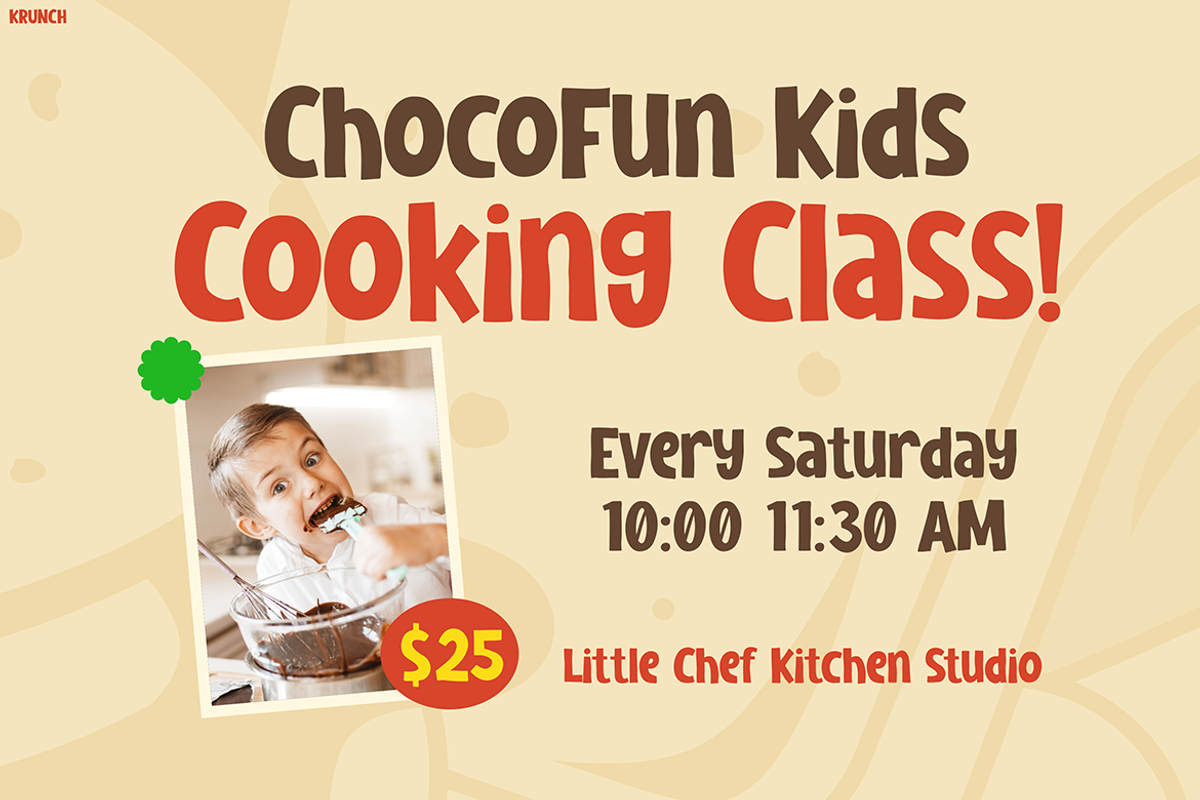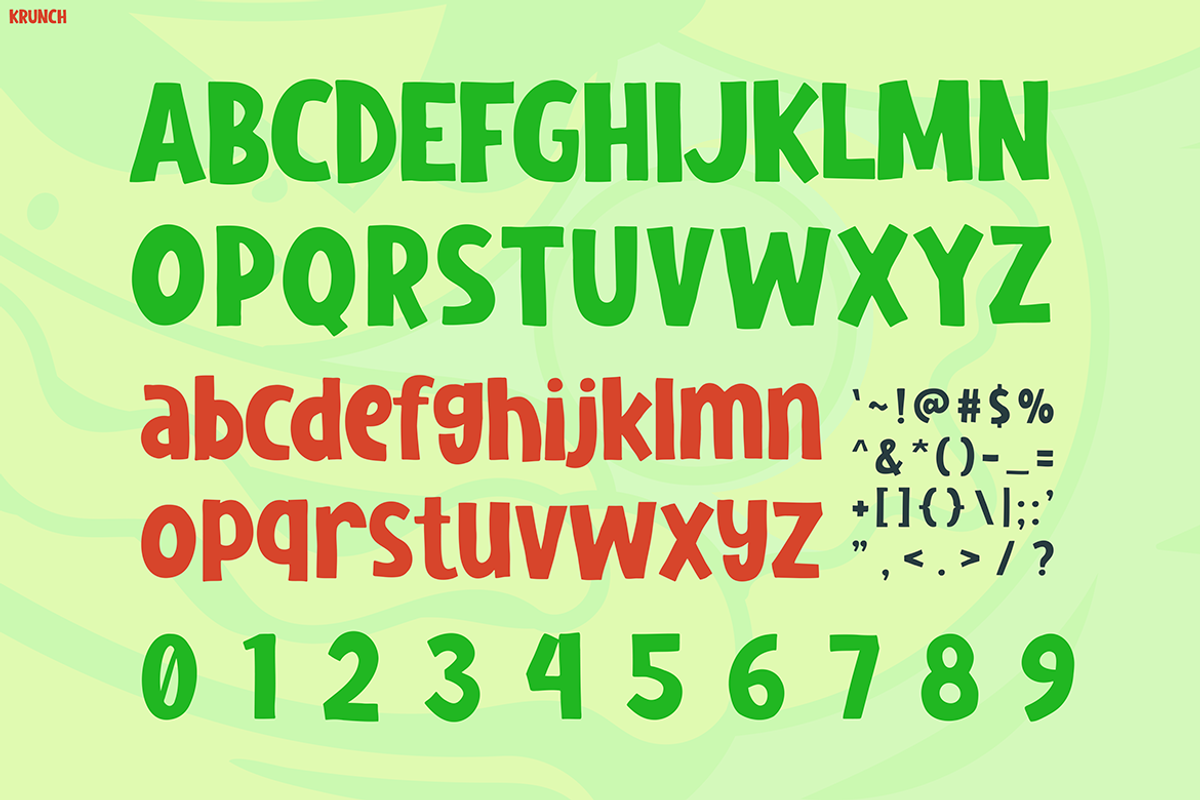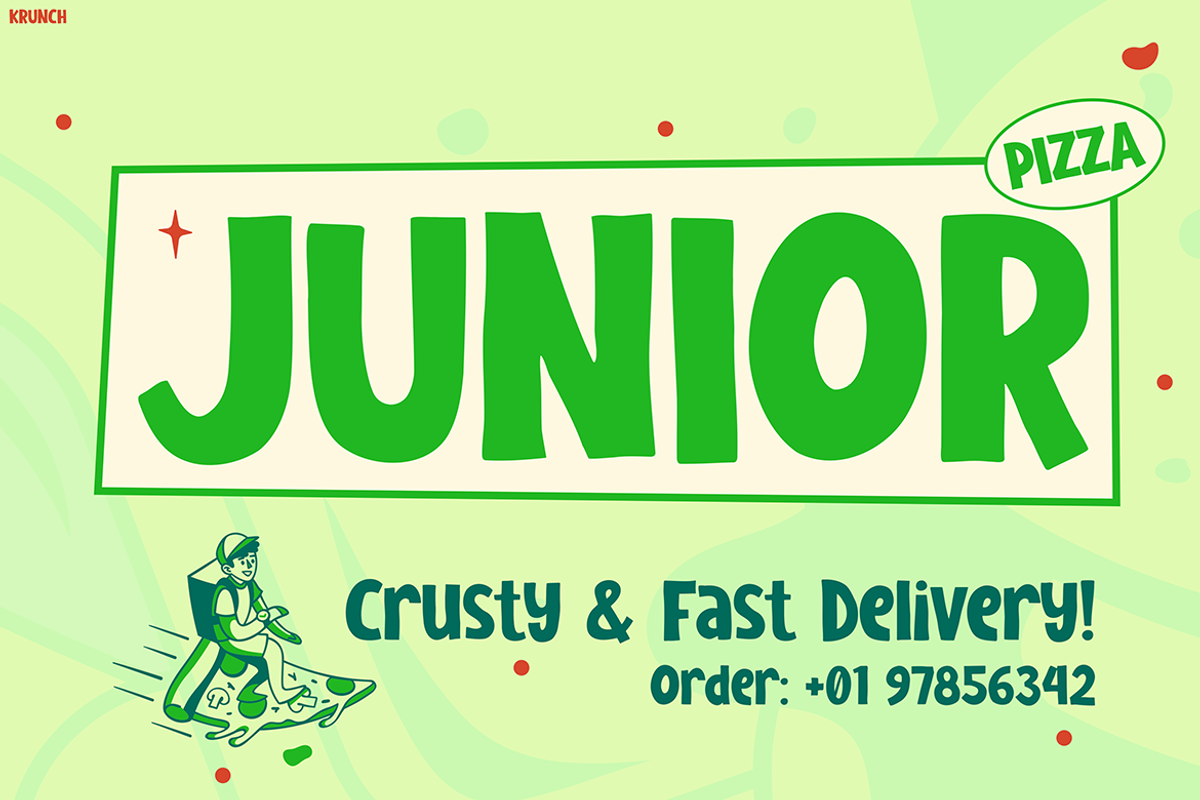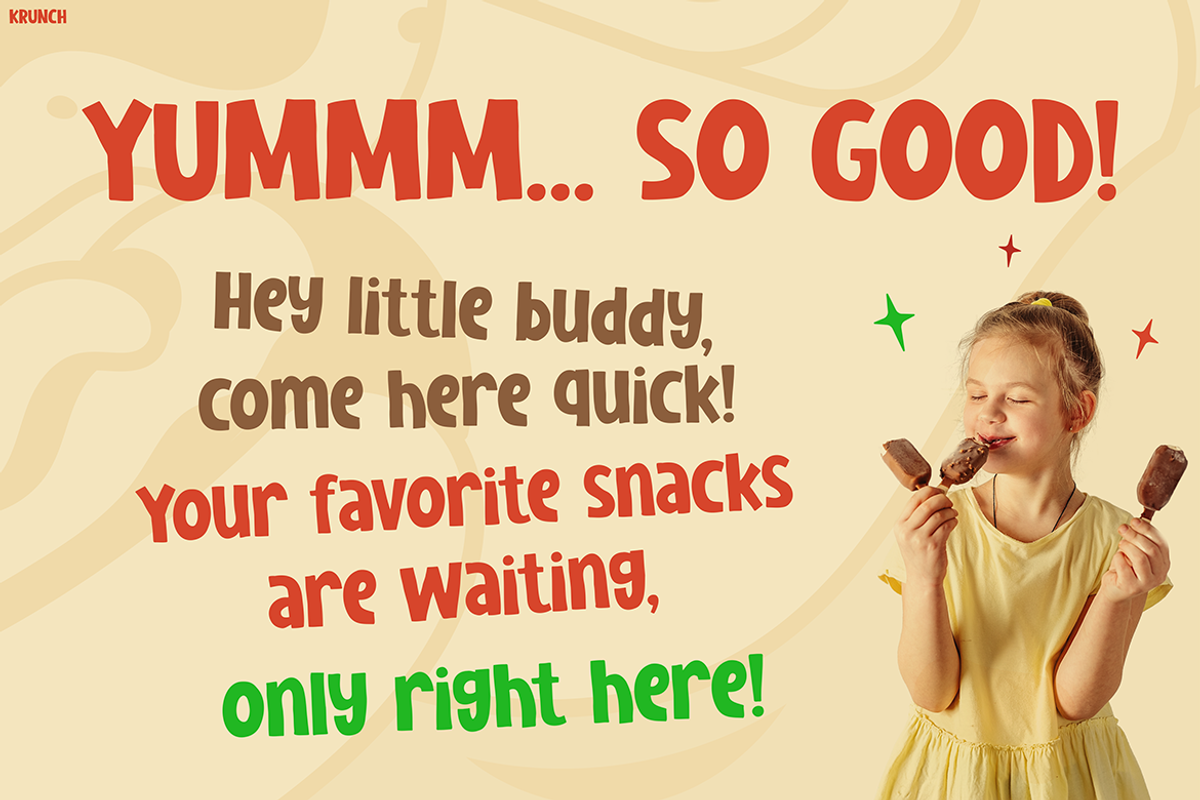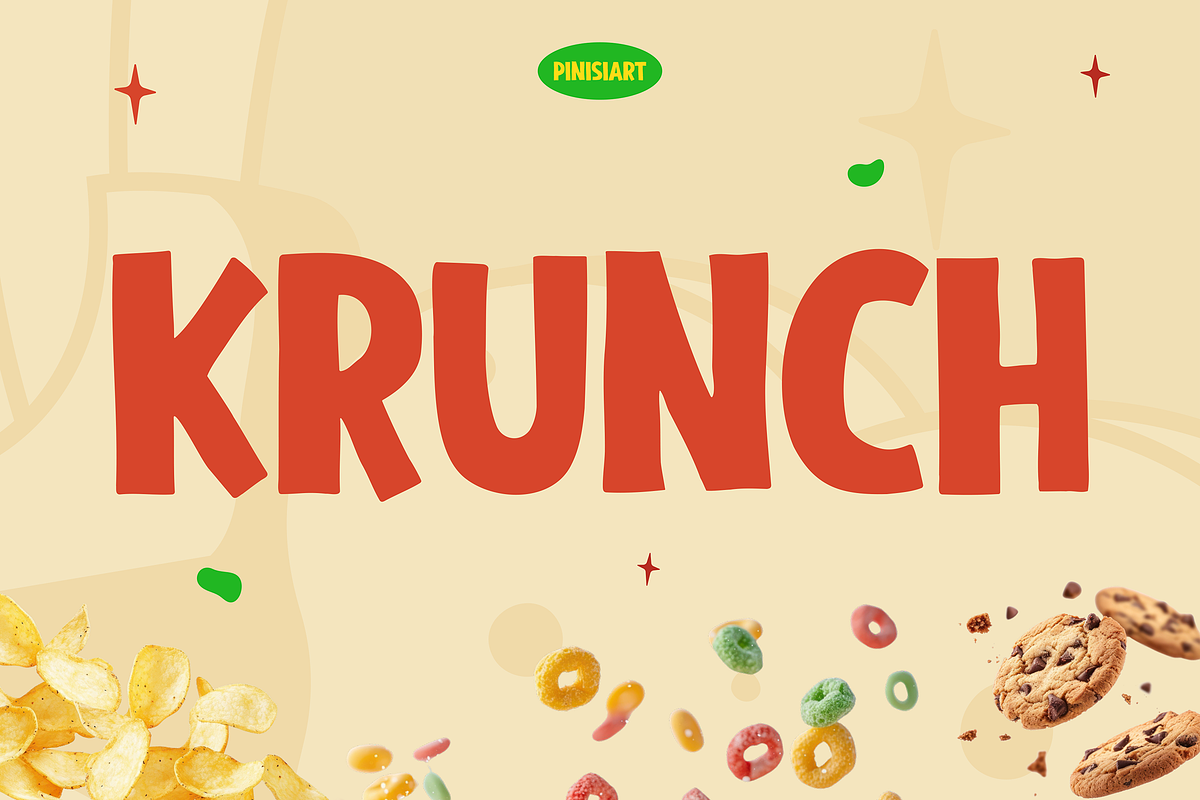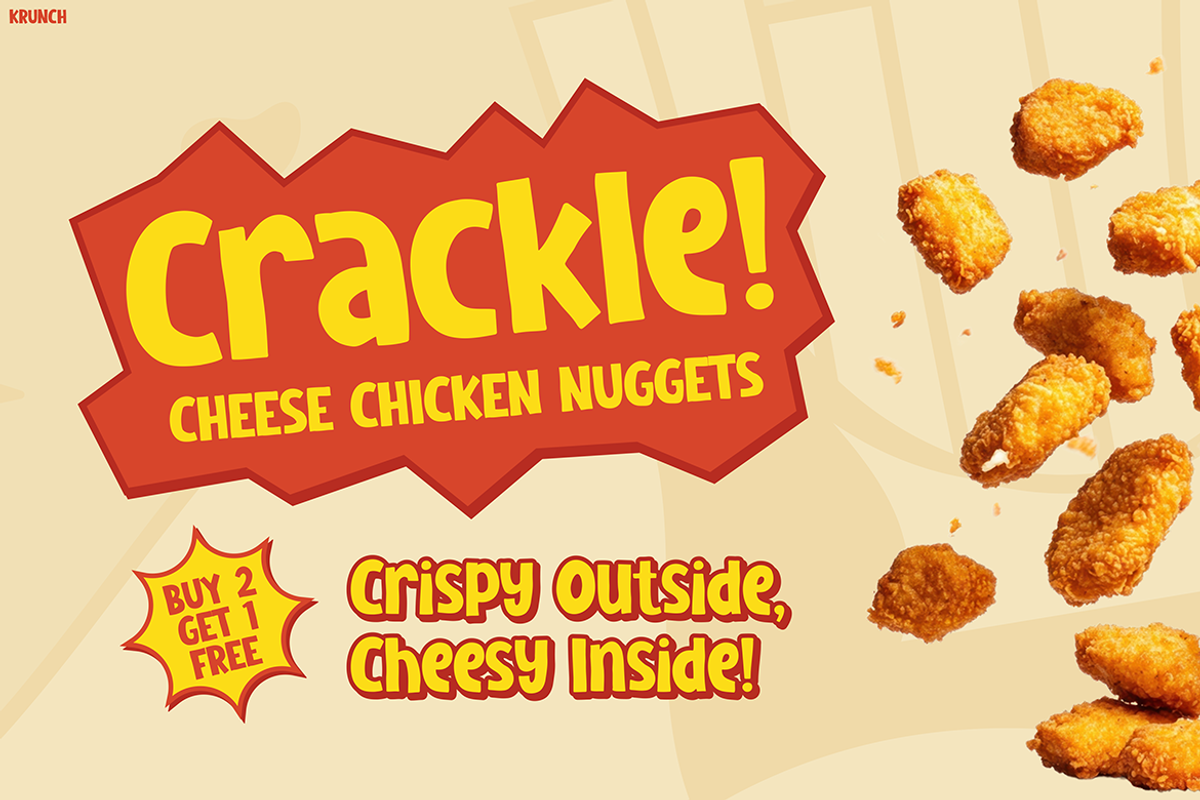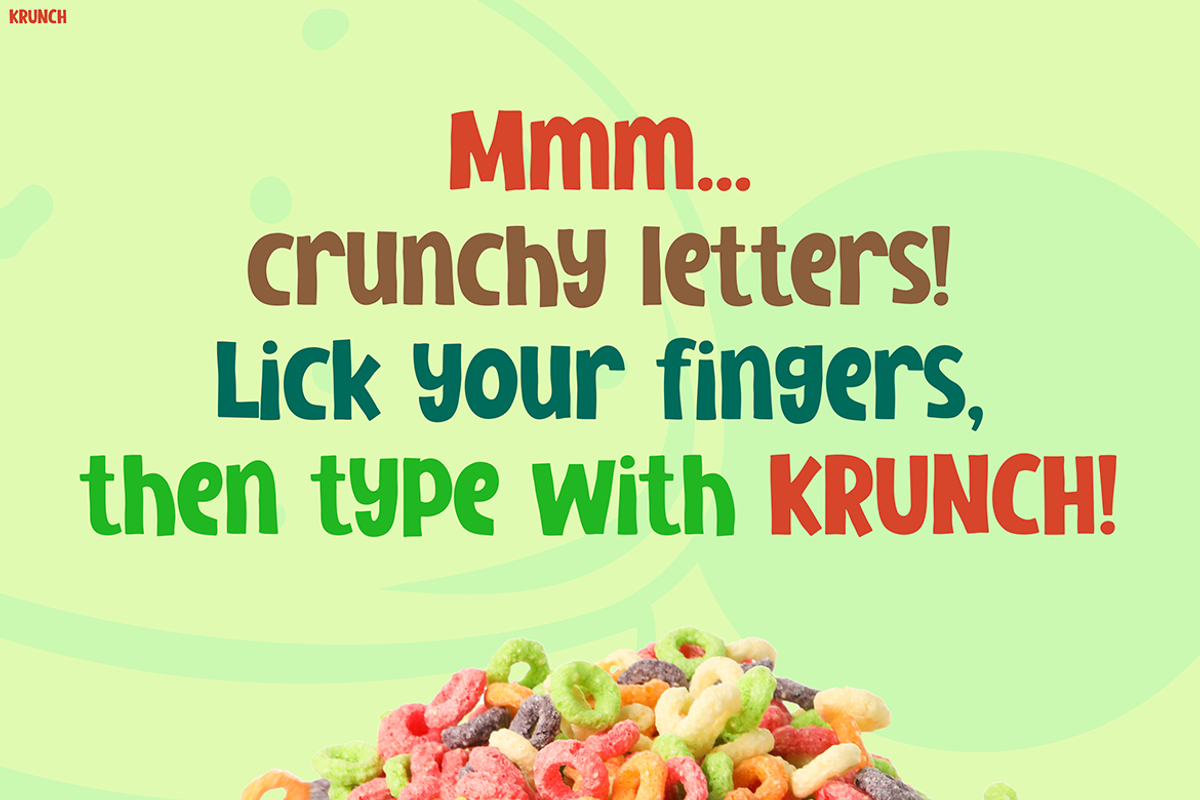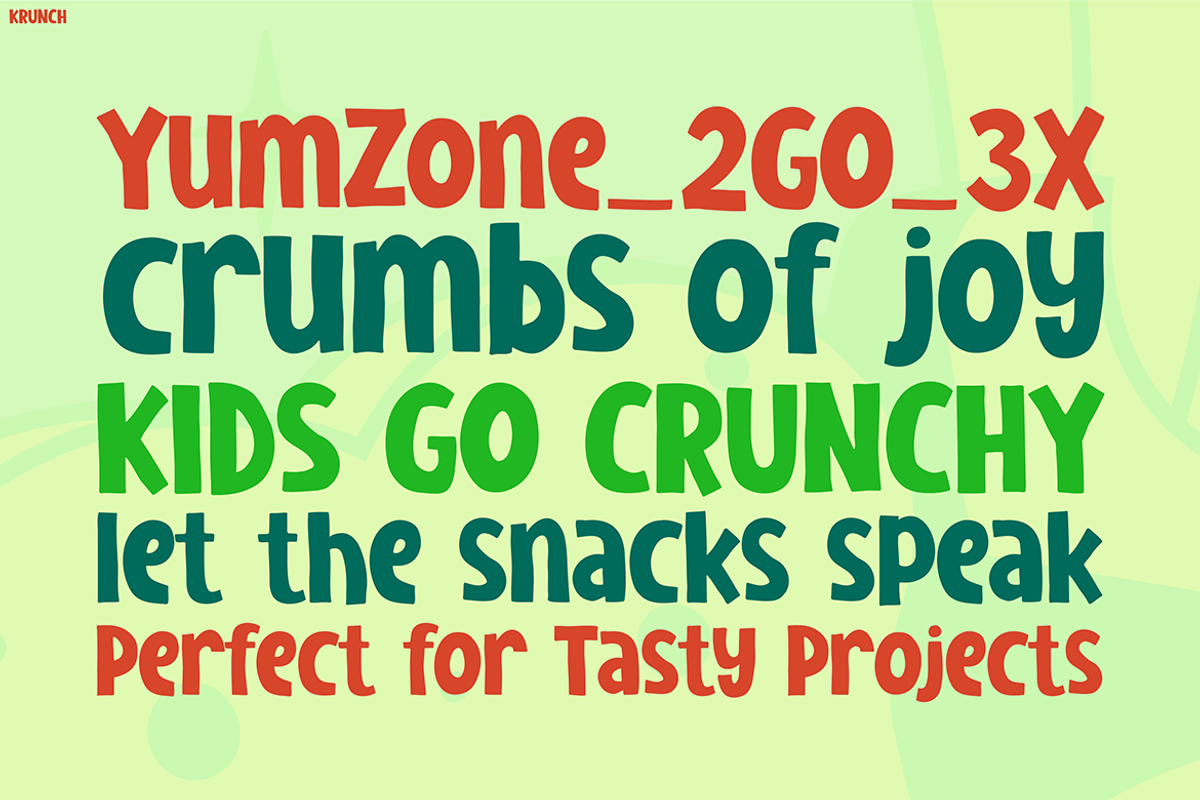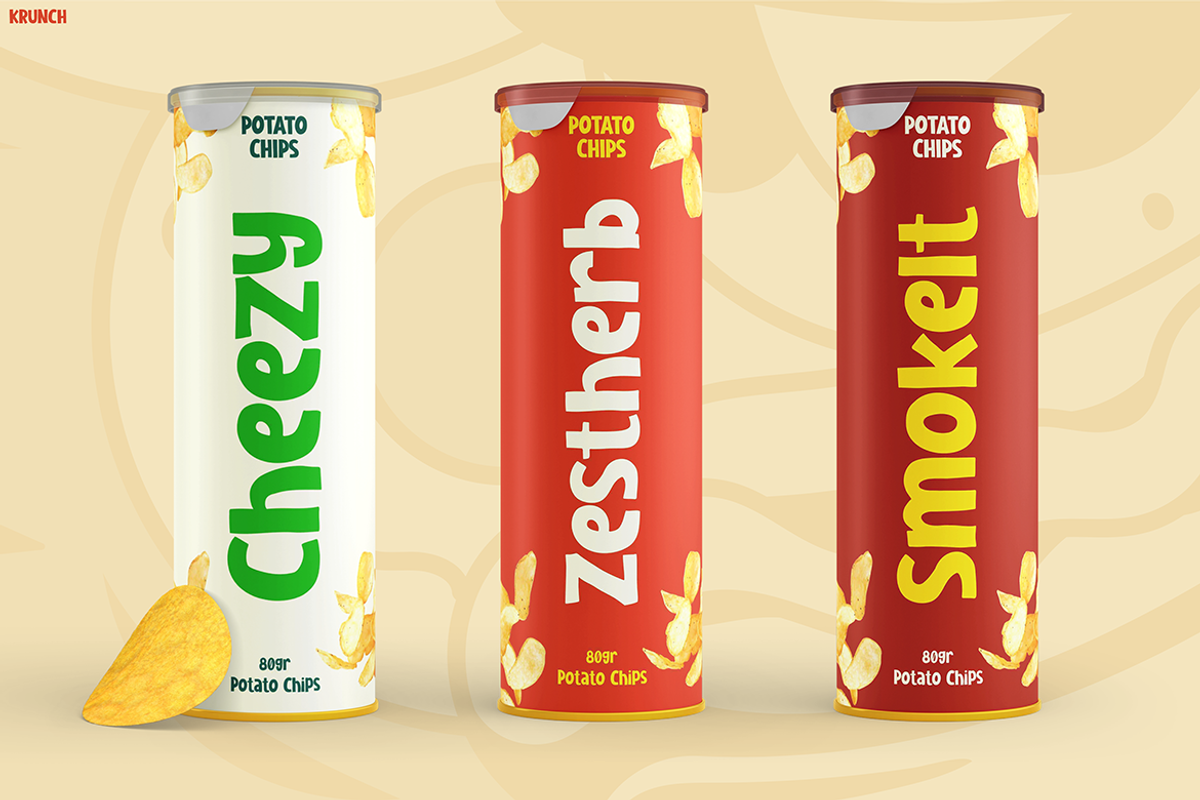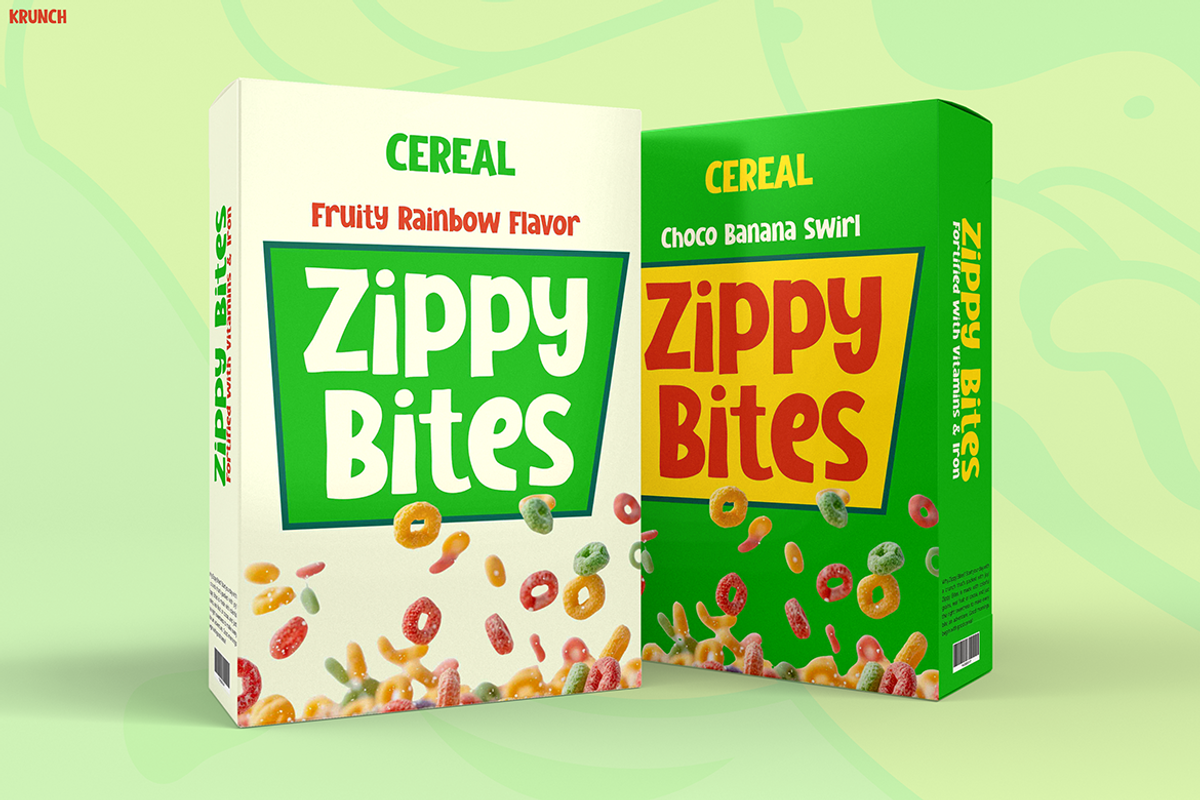
KRUNCH
Kids Font KRUNCH – Bold, Fun, and Full of Flavor!
Kids Font KRUNCH is a cheerful and crunchy display font that immediately pops with personality! Its chunky letterforms and playful curves make it irresistibly eye-catching, especially for food-themed content or child-focused branding. What makes this font truly unique is its bold presence paired with a fun, snack-inspired aesthetic—perfectly capturing the excitement and joy of childhood snacks and activities. Whether you’re designing for cereal boxes, cooking classes, snack labels, or kids’ promotions, this font brings a deliciously fun vibe to any project.
The visuals of Kids Font KRUNCH show exactly why it stands out. From the bold “KRUNCH” title in crisp, bite-sized letters to its highly legible alphabet set (uppercase, lowercase, numbers, and punctuation), the font is crafted to grab attention while staying readable. The aesthetic is lighthearted and full of joy—ideal for brands or creators that want to express youthful energy, crunchy textures, and snack-time excitement. It feels both fresh and nostalgic, reminiscent of weekend cartoons, lunchbox treats, and after-school fun.